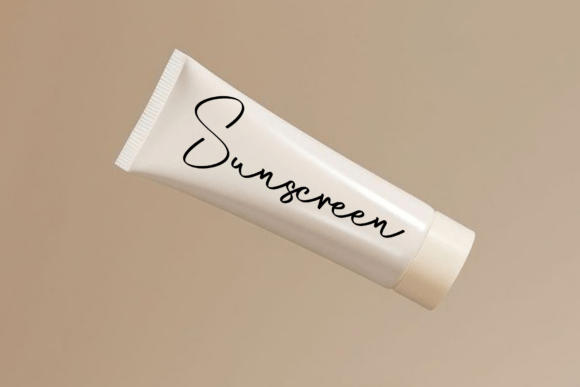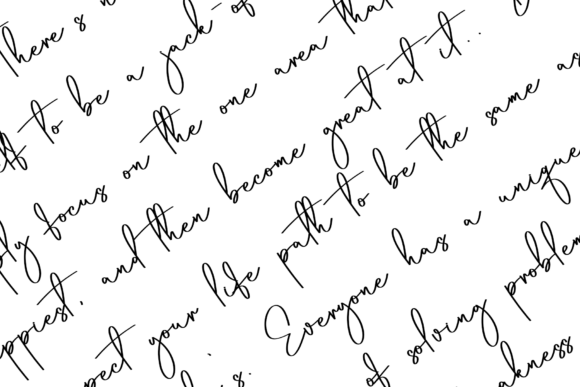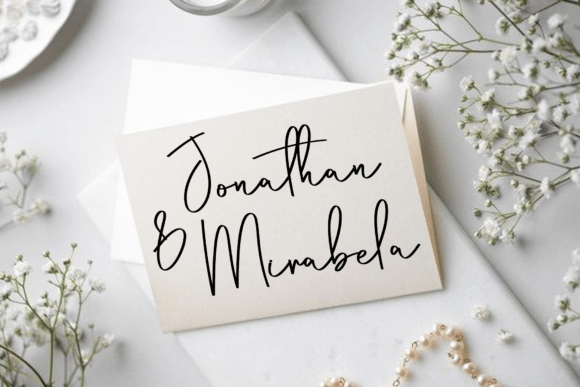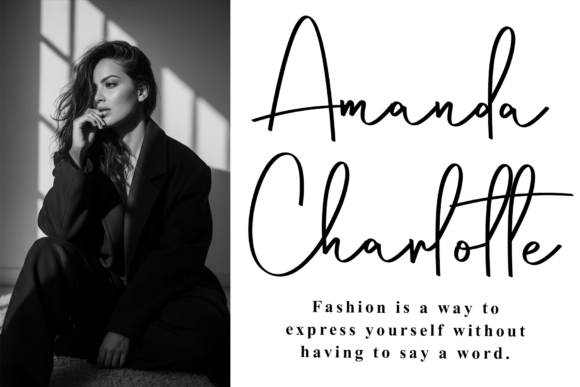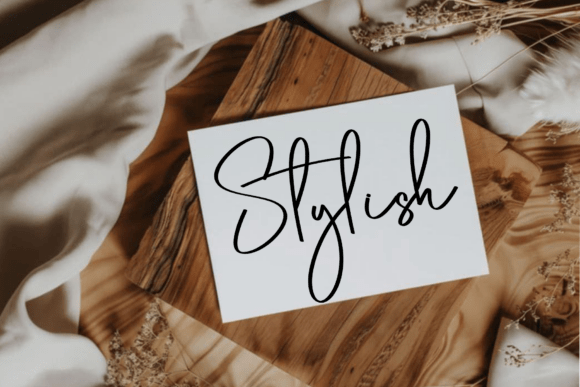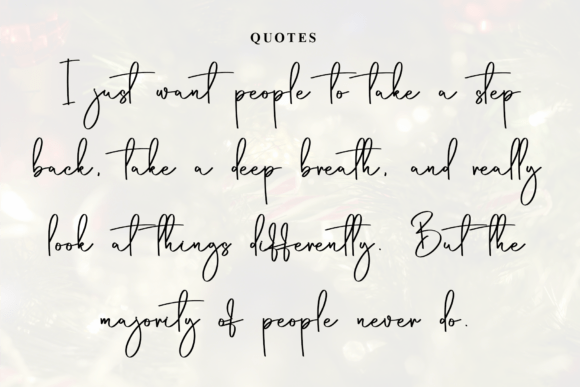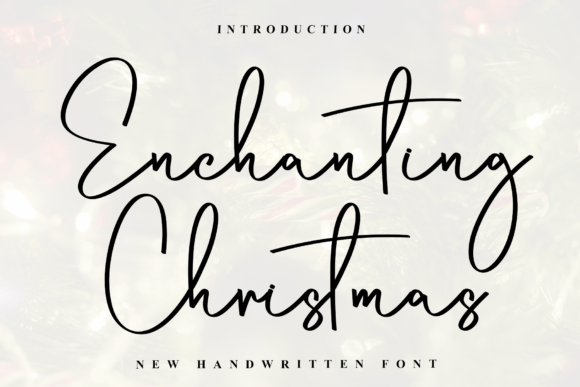
Enchanting Christmas Font: Elevate Your Designs with Elegance and Charm
Are you searching for a font that embodies the magic of the holiday season? Look no further than the Enchanting Christmas font, a stunning handwritten script font that exudes sophistication and charm. This elegant font is perfect for designers and crafters seeking to add a touch of luxury and refinement to their projects.
A Font that Shines with Sophistication
The Enchanting Christmas font boasts graceful curves, flowing strokes, and refined ligatures that make it an ideal choice for a variety of design applications. Its smooth, stylish lines give it a timeless, romantic feel, while its clean structure ensures professional readability. Whether you’re creating wedding invitations, branding materials, quotes, greeting cards, or feminine logo designs, this font is sure to impress.
Perfect for Print and Digital Projects
One of the standout features of the Enchanting Christmas font is its versatility. It’s perfectly suited for both print and digital projects, allowing you to use it across a range of mediums. From business cards and brochures to social media graphics and website headers, this font will add a touch of elegance and sophistication to every design it graces.
Design Applications for Enchanting Christmas Font
So, what can you create with the Enchanting Christmas font? The possibilities are endless! Here are some design applications to get you started:
- Wedding Invitations: Add a touch of romance and elegance to your wedding invitations with this beautiful script font.
- Branding: Use the Enchanting Christmas font to create stunning brand identities that exude sophistication and charm.
- Quotes: Add a touch of luxury and refinement to your quote designs with this elegant font.
- Greeting Cards: Create beautiful greeting cards for special occasions, such as Christmas, Valentine’s Day, or Mother’s Day.
- Feminine Logo Designs: Use the Enchanting Christmas font to create feminine and elegant logo designs that will make your brand stand out.
Why Choose Enchanting Christmas Font?
With so many fonts available, why choose the Enchanting Christmas font? Here are just a few reasons:
- Elegant and Sophisticated: This font exudes elegance and sophistication, making it perfect for high-end designs.
- Versatile: The Enchanting Christmas font is suitable for a range of design applications, from print to digital.
- Timeless: The smooth, stylish lines of this font give it a timeless feel that will never go out of style.
In conclusion, the Enchanting Christmas font is a stunning handwritten script font that shines with sophistication and charm. Its elegant curves, flowing strokes, and refined ligatures make it perfect for a range of design applications, from wedding invitations to branding and quotes. With its PUA encoding and versatile design, this font is sure to become a favorite among designers and crafters. So why wait? Add a touch of magic and elegance to your designs with the Enchanting Christmas font today!